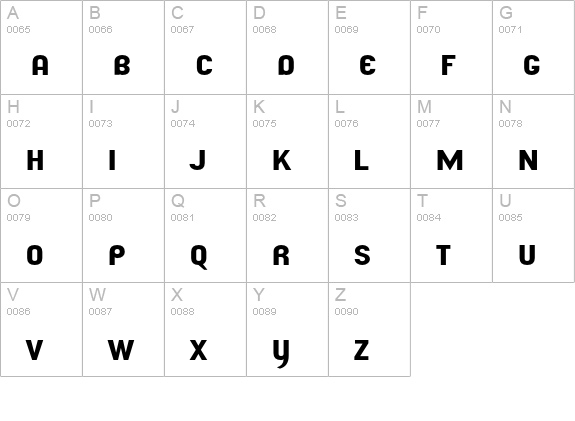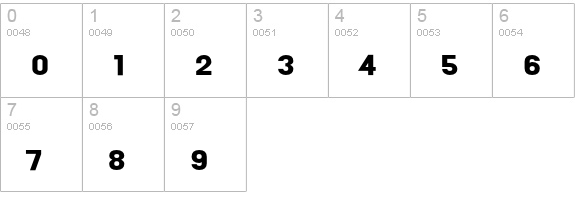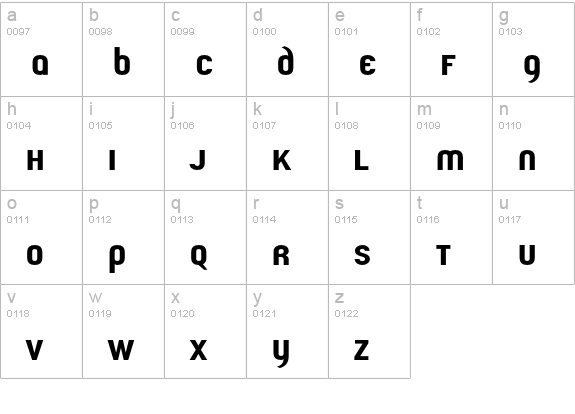
UdoWide Font Details
Introducing UdoWide, a stunning and versatile font that effortlessly combines modernity with a touch of elegance. Designed with utmost precision and attention to detail, UdoWide is the epitome of typographic excellence. Featuring a wide and bold design, this font commands attention and makes a bold statement in any project. Its carefully crafted letterforms exude confidence and sophistication, making it the perfect choice for impactful headlines, captivating logos, and eye-catching signage. UdoWide's versatility is unmatched, as it seamlessly adapts to a wide range of design styles and themes. Its clean and legible appearance ensures optimal readability, even at smaller sizes, while its distinctive personality adds a unique flair to any composition. One of the most remarkable aspects of UdoWide is that it is available for free download exclusively at FontsMarket.com. Yes, you read that right – this exceptional font can be yours without any cost. FontsMarket.com, a trusted source for high-quality fonts, offers UdoWide as a gift to the design community, allowing everyone to access its remarkable features and unleash their creativity without any limitations. So, whether you're a professional designer or a passionate hobbyist, don't miss out on the opportunity to elevate your projects with the remarkable UdoWide font. Download it for free at FontsMarket.com and discover a world of endless design possibilities.